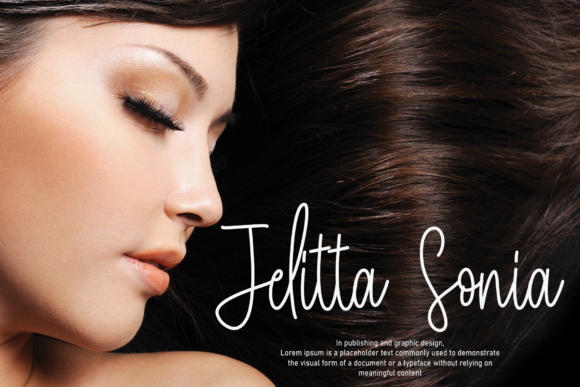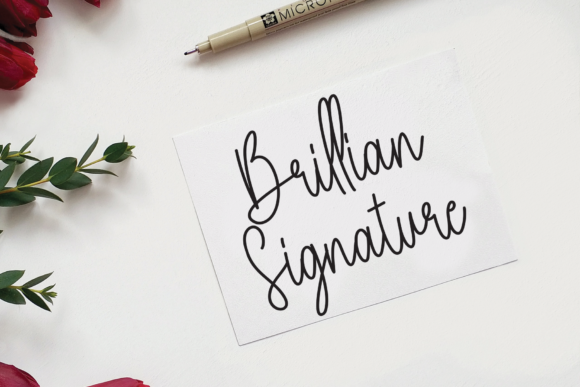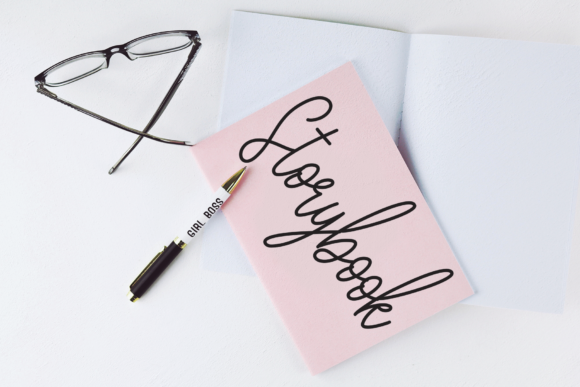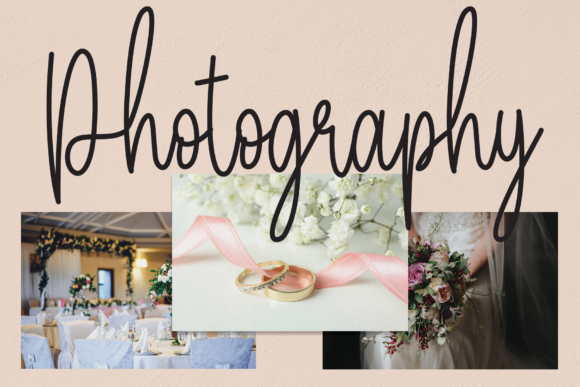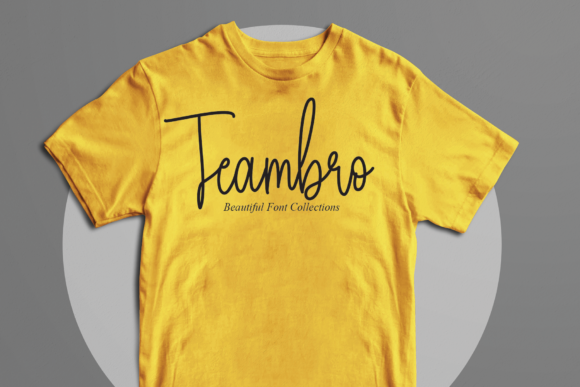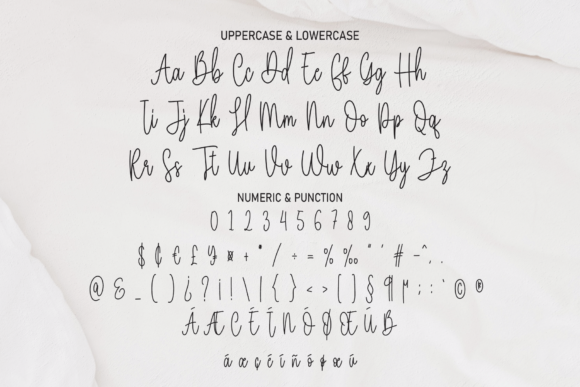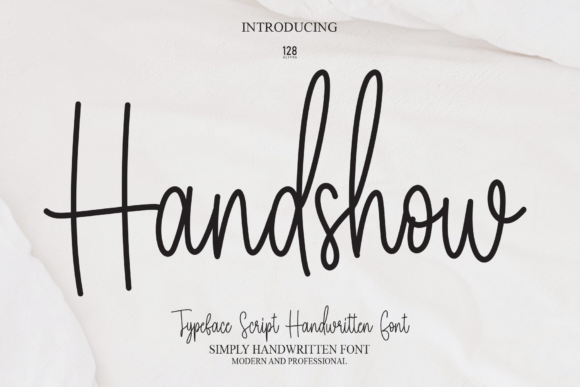
Introducing Handshow Font: Elevate Your Designs with Elegance and Chic
Are you on the hunt for a font that exudes love, chicness, and sophistication? Look no further than Handshow Font, a beautiful script font that is perfect for a variety of design projects. From product packaging and branding to magazine covers, social media graphics, and wedding designs, Handshow Font is the ideal choice for designers and crafters looking to add a touch of elegance to their work.
The Perfect Blend of Lovely and Chic
Handshow Font is a stunning script font that boasts a unique blend of loveliness and chicness. Its elegant strokes and beautiful lettering make it perfect for designs that require a touch of sophistication. Whether you’re working on a product packaging project, a branding campaign, or a wedding design, Handshow Font is sure to impress. Its versatility and flexibility make it an excellent choice for a wide range of design applications.
One of the best things about Handshow Font is its incredible versatility. This lovely script font can be used in a multitude of design projects, including:
• Product packaging: Add a touch of elegance to your product packaging with Handshow Font. Perfect for luxury brands, cosmetics, and food products.
• Branding projects: Create a lasting impression with Handshow Font. Use it for logos, business cards, and other branding materials.
• Magazine covers: Make your magazine cover stand out with Handshow Font. Its chic and sophisticated design is sure to grab attention.
• Social media graphics: Elevate your social media graphics with Handshow Font. Use it to create stunning posts, banners, and stories.
• Wedding designs: Add a touch of romance to your wedding designs with Handshow Font. Perfect for wedding invitations, decorations, and more.
Why Choose Handshow Font?
So, why choose Handshow Font over other script fonts? Here are just a few reasons why designers and crafters love this lovely and chic font:
• Unique and elegant design: Handshow Font boasts a unique and elegant design that is sure to make your designs stand out.
• High-quality lettering: The font features high-quality lettering that is clear and easy to read.
• Flexible and versatile: This script font can be used in a wide range of design applications, making it an excellent addition to your font library.
Tips for Using Handshow Font
To get the most out of Handshow Font, here are a few tips to keep in mind:
• Use it sparingly: While Handshow Font is beautiful, it’s best to use it sparingly to avoid overwhelming your design.
• Pair it with other fonts: Experiment with pairing Handshow Font with other fonts to create a unique and interesting design.
• Adjust the size and color: Play around with the size and color of Handshow Font to create a design that pops.
In conclusion, Handshow Font is a lovely and chic script font that is perfect for designers and crafters looking to add a touch of elegance to their work. Its unique and elegant design, high-quality lettering, and flexibility make it an excellent choice for a wide range of design projects. Whether you’re working on product packaging, branding, magazine covers, social media graphics, or wedding designs, Handshow Font is sure to impress. So why wait? Download Handshow Font today and take your designs to the next level!